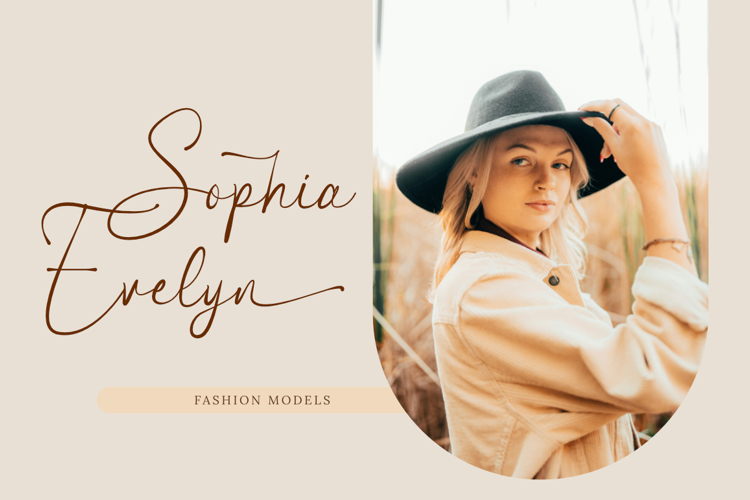
Majestica Royale Font
Majestica Royale is a premium script font designed for a luxurious and professional look. It combines the beauty of traditional calligraphy with a clean, modern touch.